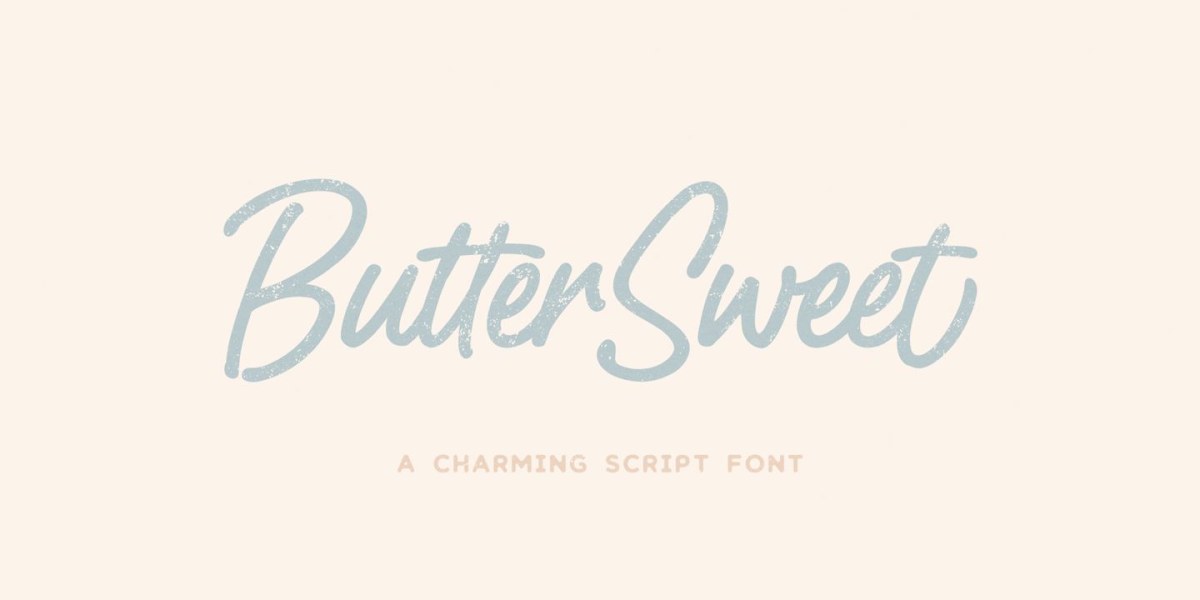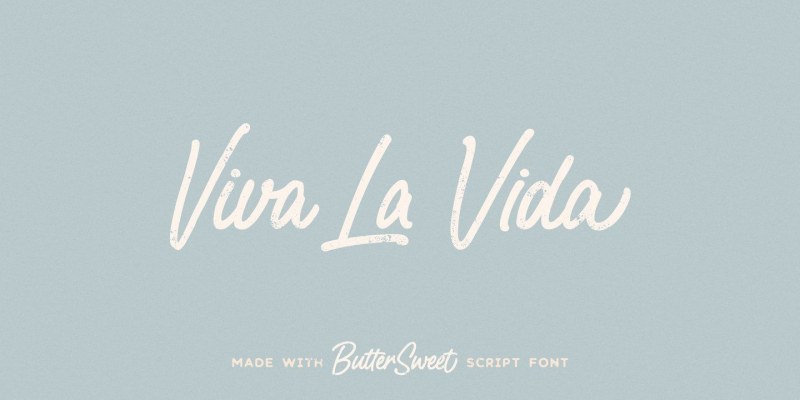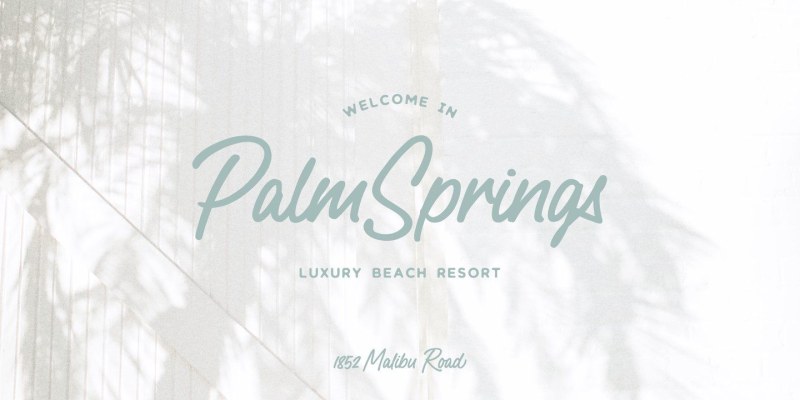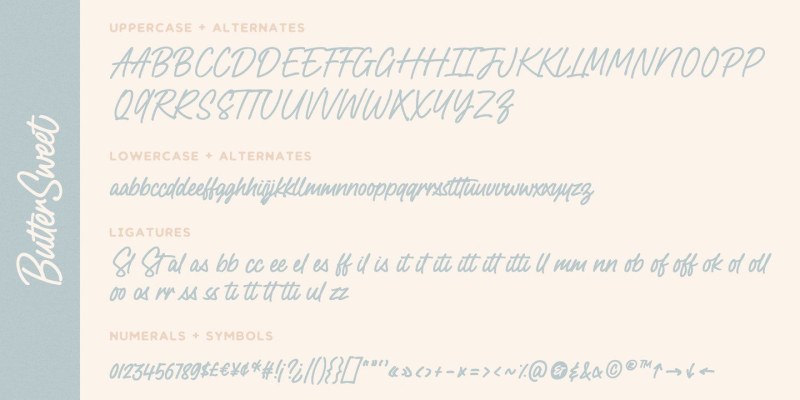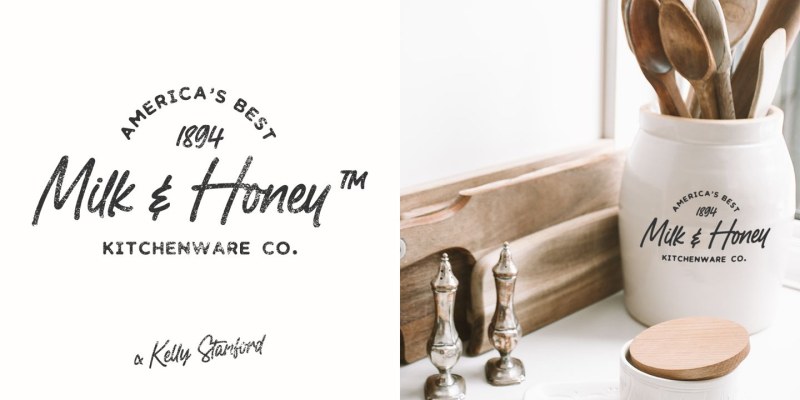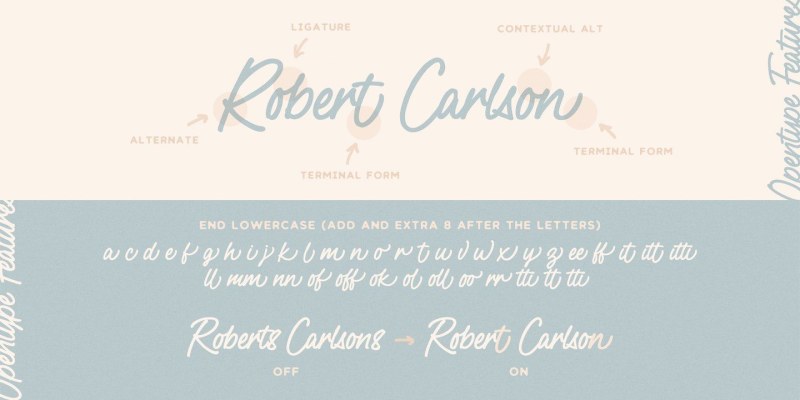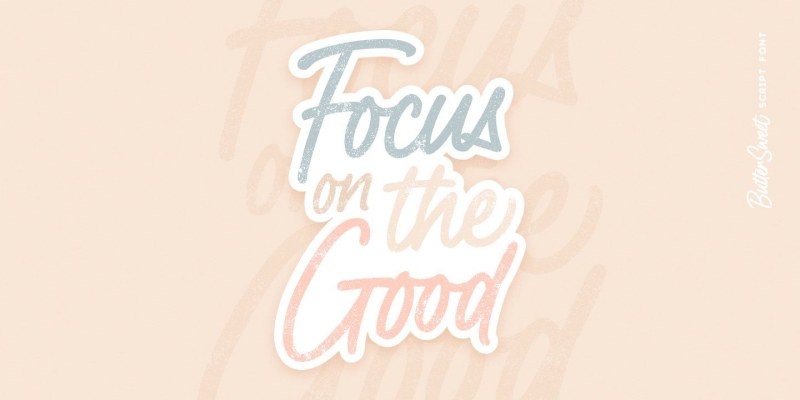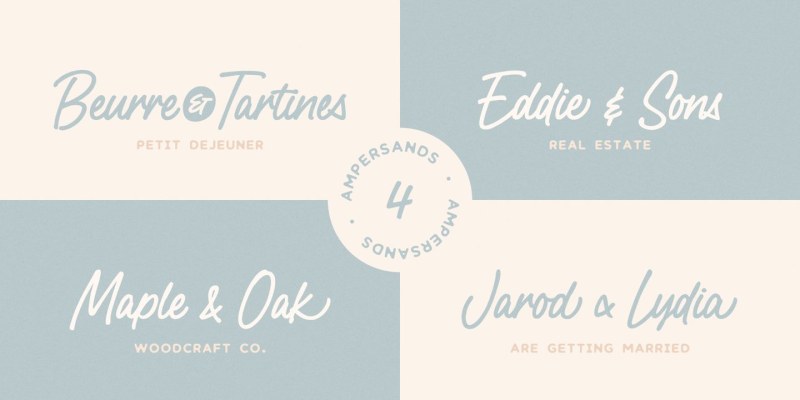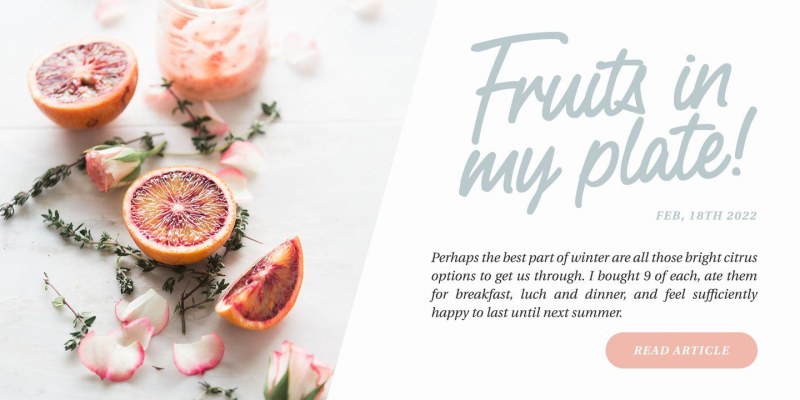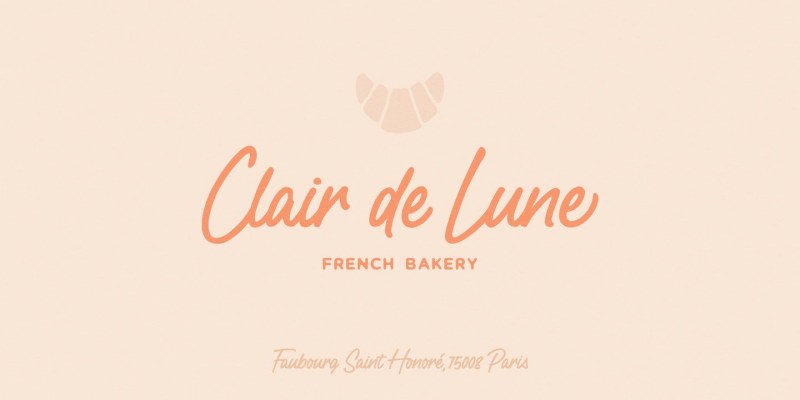
Butter Sweet Font
Butter Sweet is a charming smooth cursive script with a little french touch. It’s perfect for handcrafted brands that are looking for a bold script font with an authentic handwritten feeling. Use it for blog headers, signatures, elegant branding, wedding stationery, products packaging, instagram quotes, greeting cards, social media posts, and so much more. Butter Sweet is designed with a large selection of Opentype features such as contextual alternates, a full stylistic set (Uppercase and lowercase), 38 regular ligatures, 18 terminal forms ligatures, 22 beautiful terminal forms for lowercase letters and you have 4 different ampersands to play with.
Butter Sweet Font is a Script And Handwritten font that brings a professional and versatile look to your projects. Butter Sweet is a charming smooth cursive script with a little french touch.